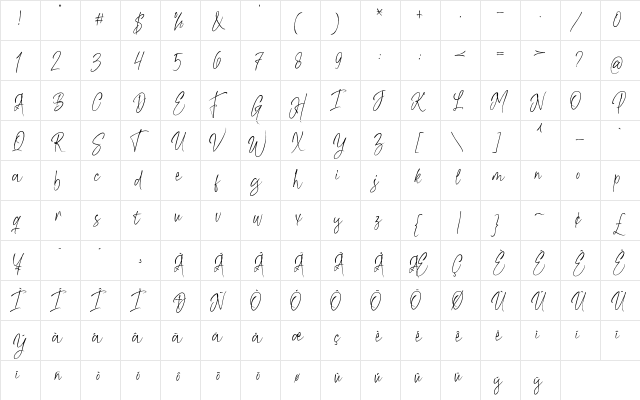
Kiysoom Signature Regular
| Foundry | Ferdiansyah_PointlabSTD |
| Designer | Ferdiansyah_PointlabSTD |
Design Context for Kiysoom Signature Typeface
Kiysoom Signature is a composed and adaptable typeface that performs quietly and consistently across a wide range of design contexts.